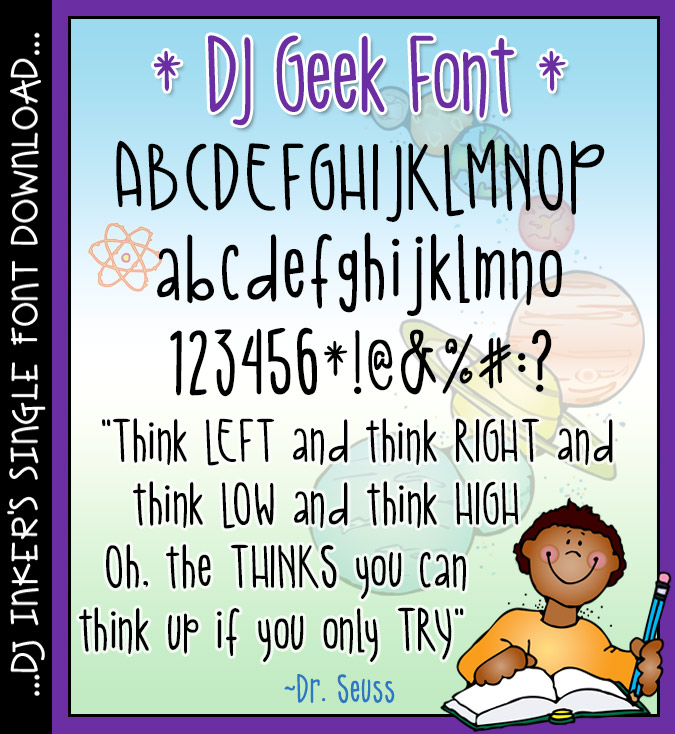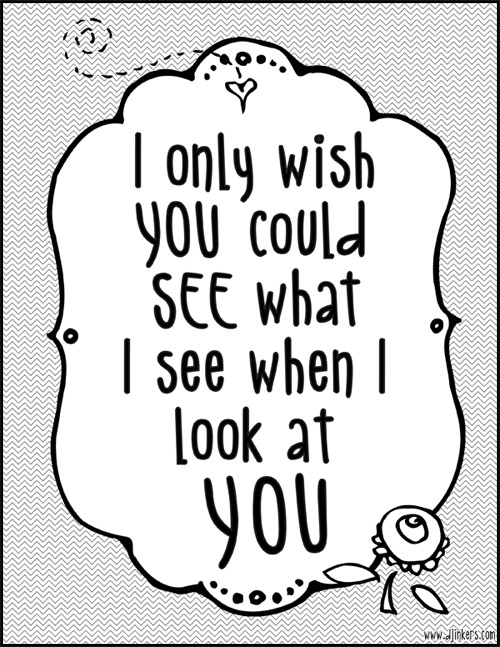
DJ Geek Font Download
We are geeking out as we type with this fun & quirky font! DJ Geek has
a great balance of strong & simple lettering... with a playful personality.
Use this versatile hand-written font to add a smile to any project, anywhere.